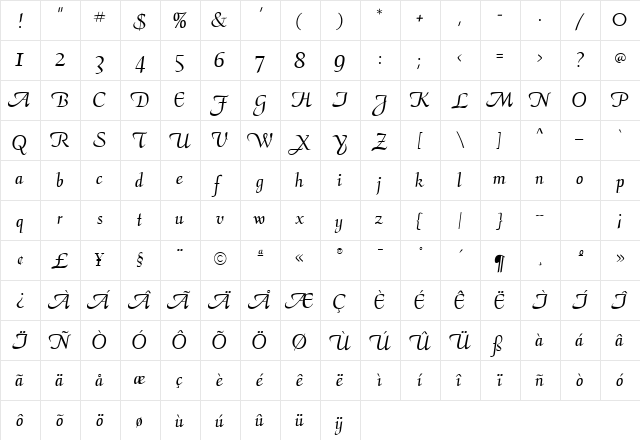
Elegans Script SSi Regular
Design Context for Elegans Script SSi Typeface
Elegans Script SSi brings a calligraphic fluidity to the page — its connecting strokes and expressive curves give it an unmistakably human quality.
Font Pairing: Combine Elegans Script SSi with a simple geometric sans for maximum contrast — the tension between flowing curves and clean structure is a classic typographic pairing.
Pro Tip: Pair Elegans Script SSi with a clean sans-serif for supporting text. The contrast between fluid script and geometric structure creates an elegant typographic hierarchy.